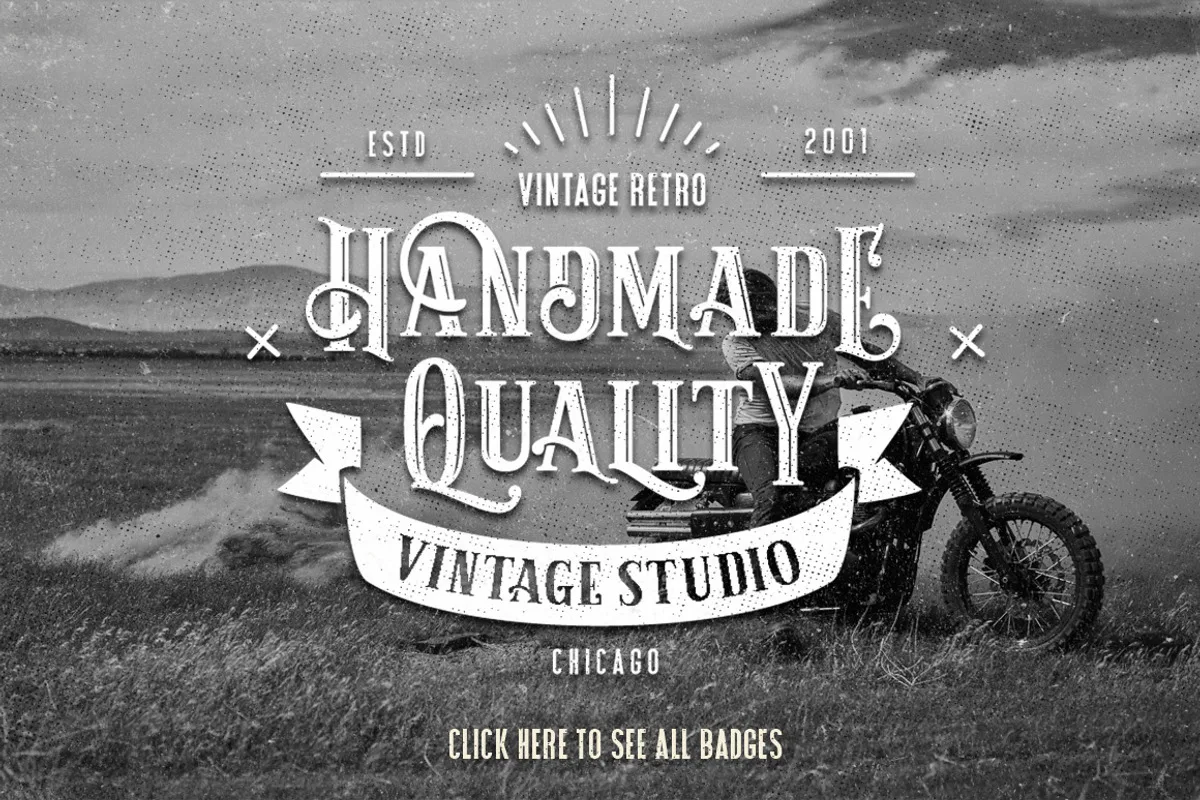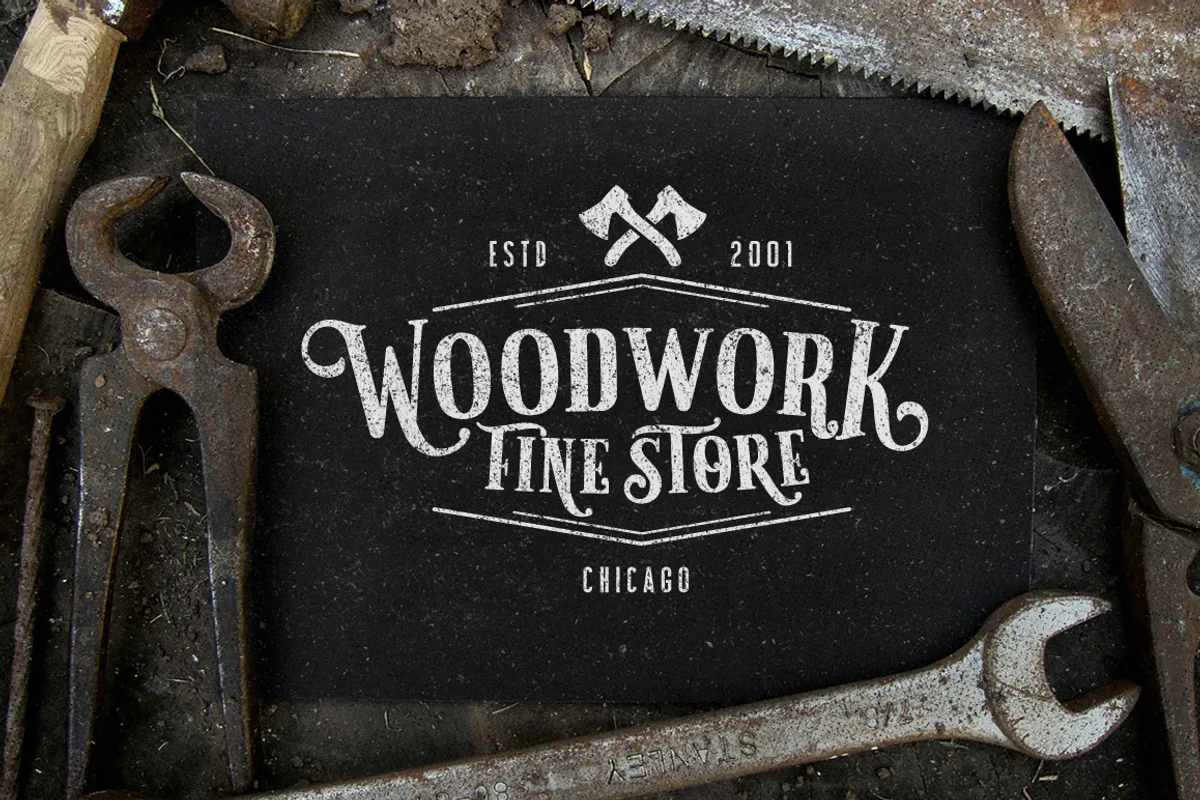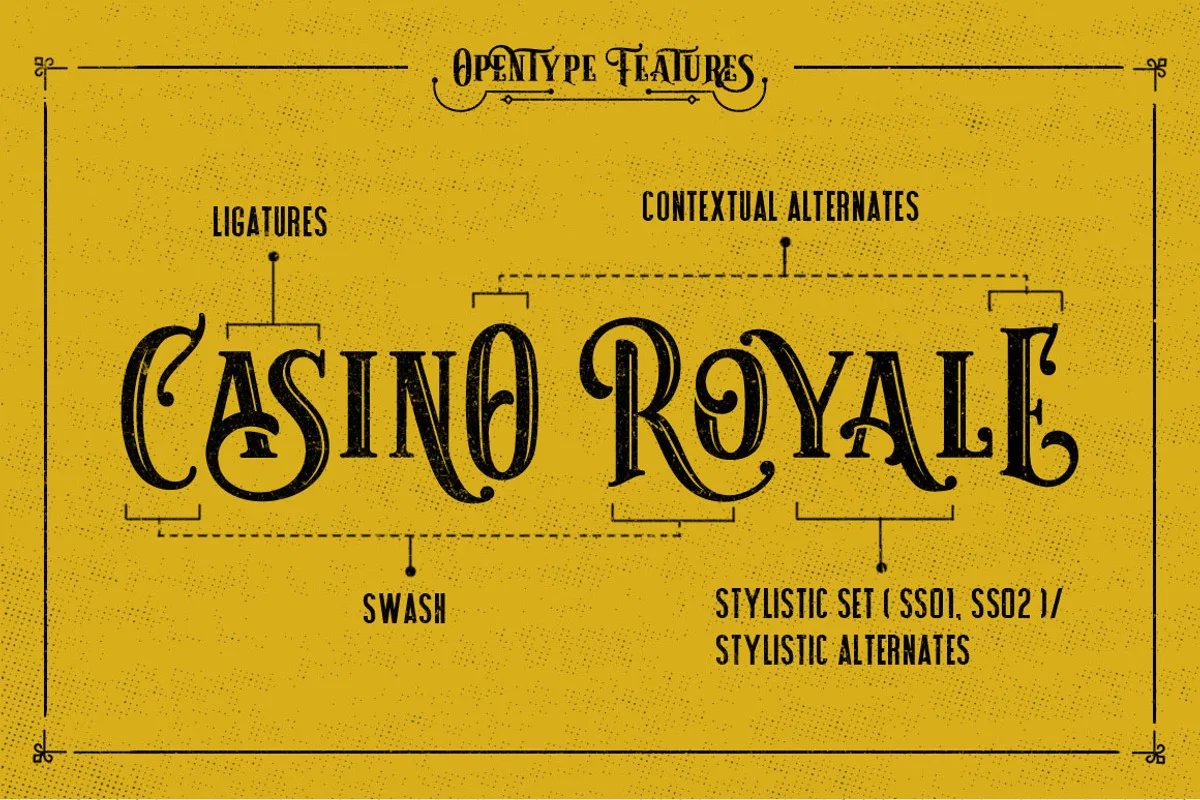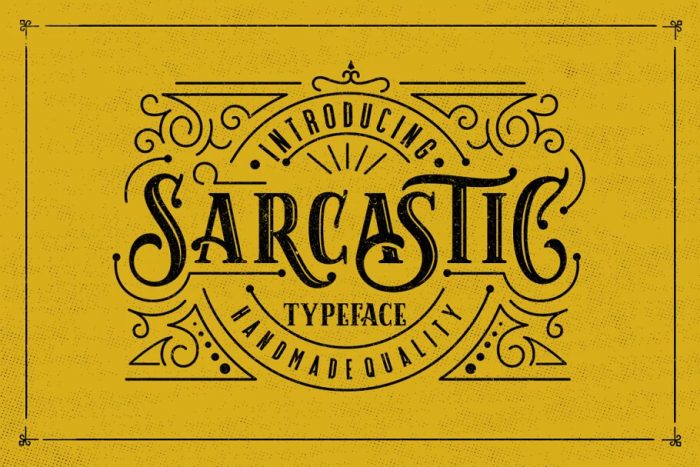
Sarcastic is a display font made by hand, inspired by classic posters. Perfect to use for logotype, letterhead, poster, apparel design, label and etc.
It comes with uppercase, lowercase, numerals, punctuations and so many variations on each characters include opentype alternates, common ligatures and also additional swash to let you customise your designs.
Feature:
- Swash
- Standard Ligatures
- Contextual Alternates
- Stylistic Alternates
- All Alternates